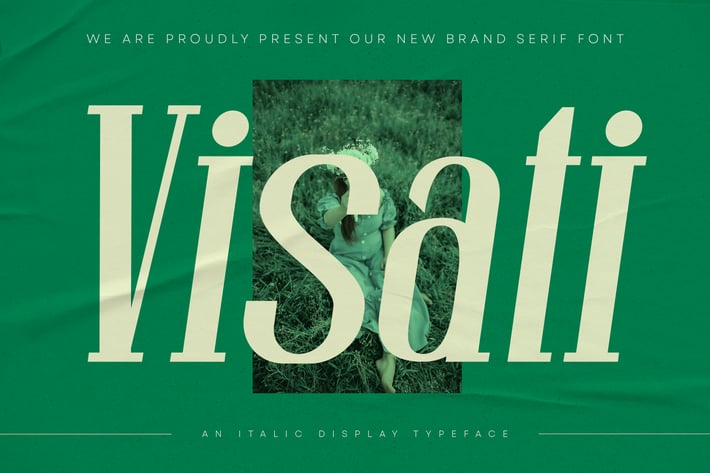
Visati - Italic Display Typeface
Visati is an elegant italic display typeface that captures attention with its graceful curves and dynamic slant. Designed to evoke a sense of movement and sophistication, this font is perfect for high-end branding, invitations, and creative projects that require a touch of flair. Its distinctive letterforms combine classic elegance with a modern twist, making it versatile for both print and digital applications. Whether you're crafting luxurious packaging, eye-catching headlines, or stylish promotional materials, Visati adds an artistic touch that elevates your designs to new heights.
– Lowercase
– Ligature
– Multilingual Support
– Lowercase
– Ligature
– Multilingual Support